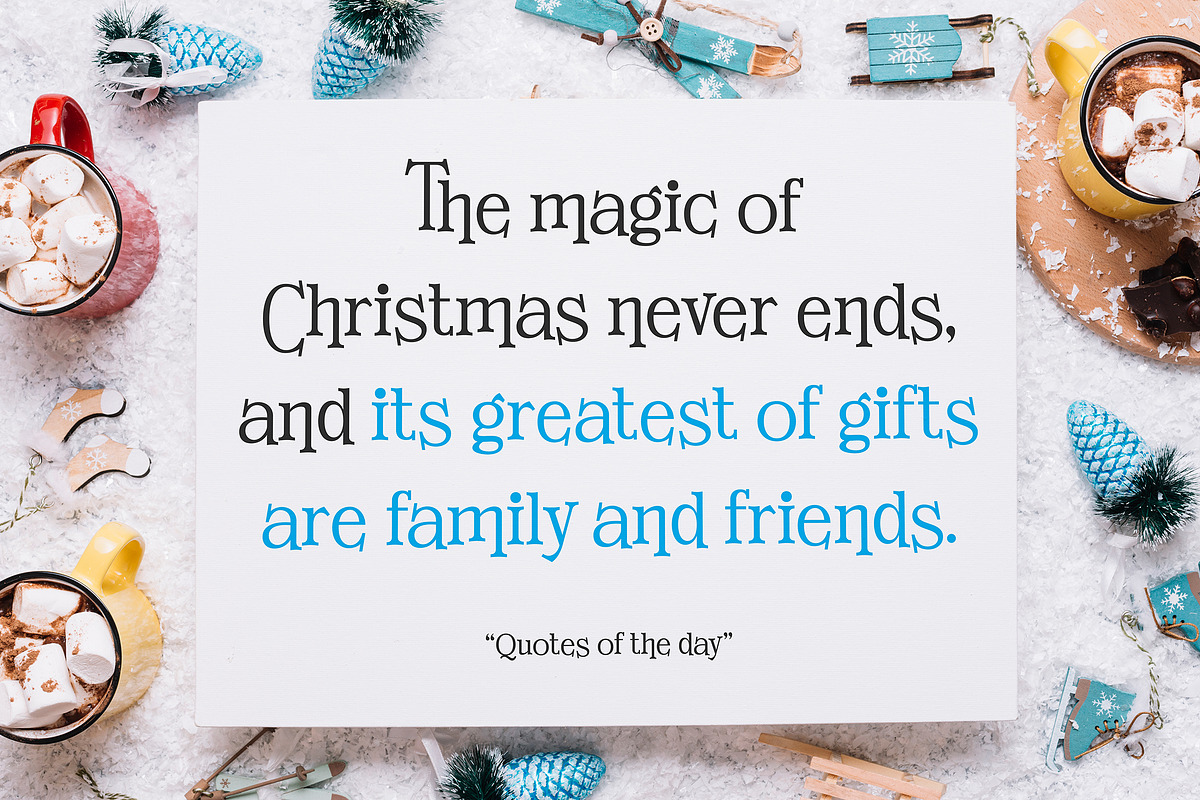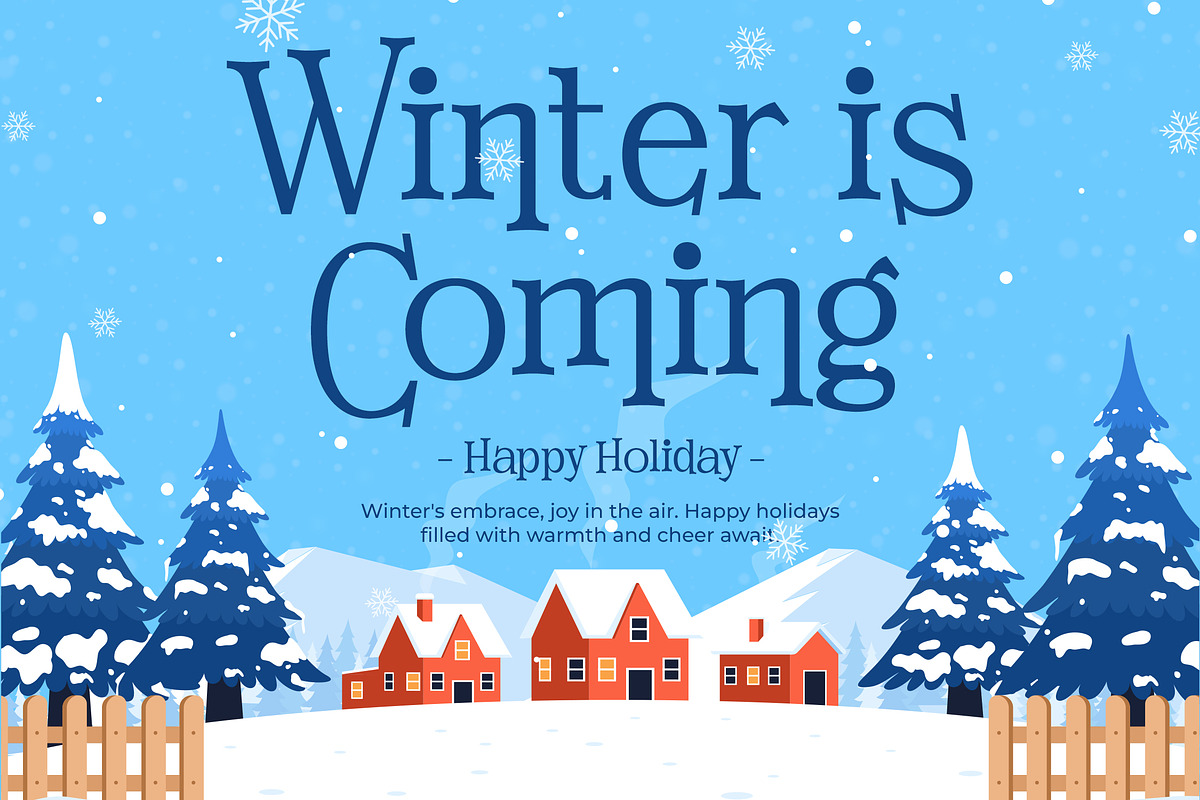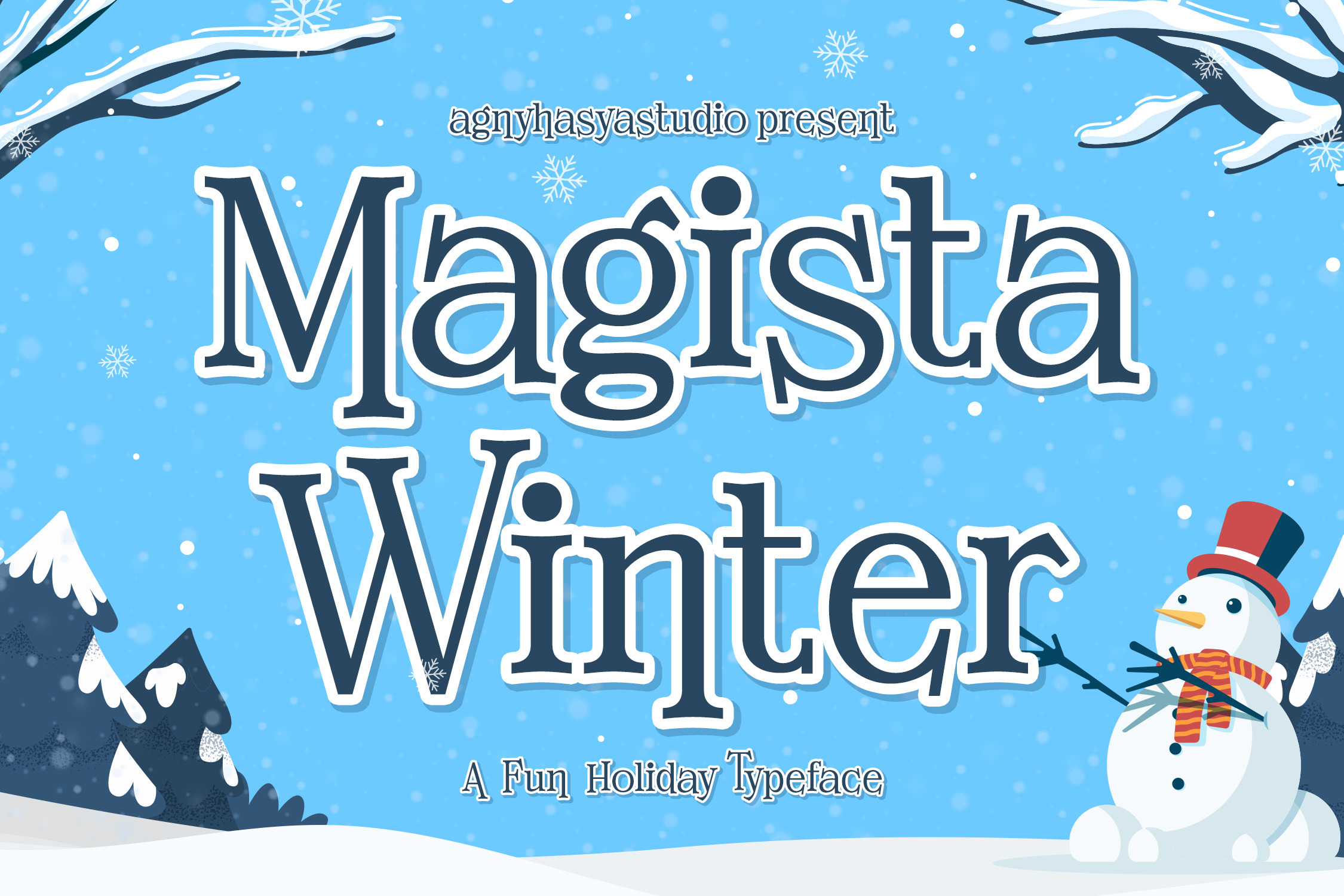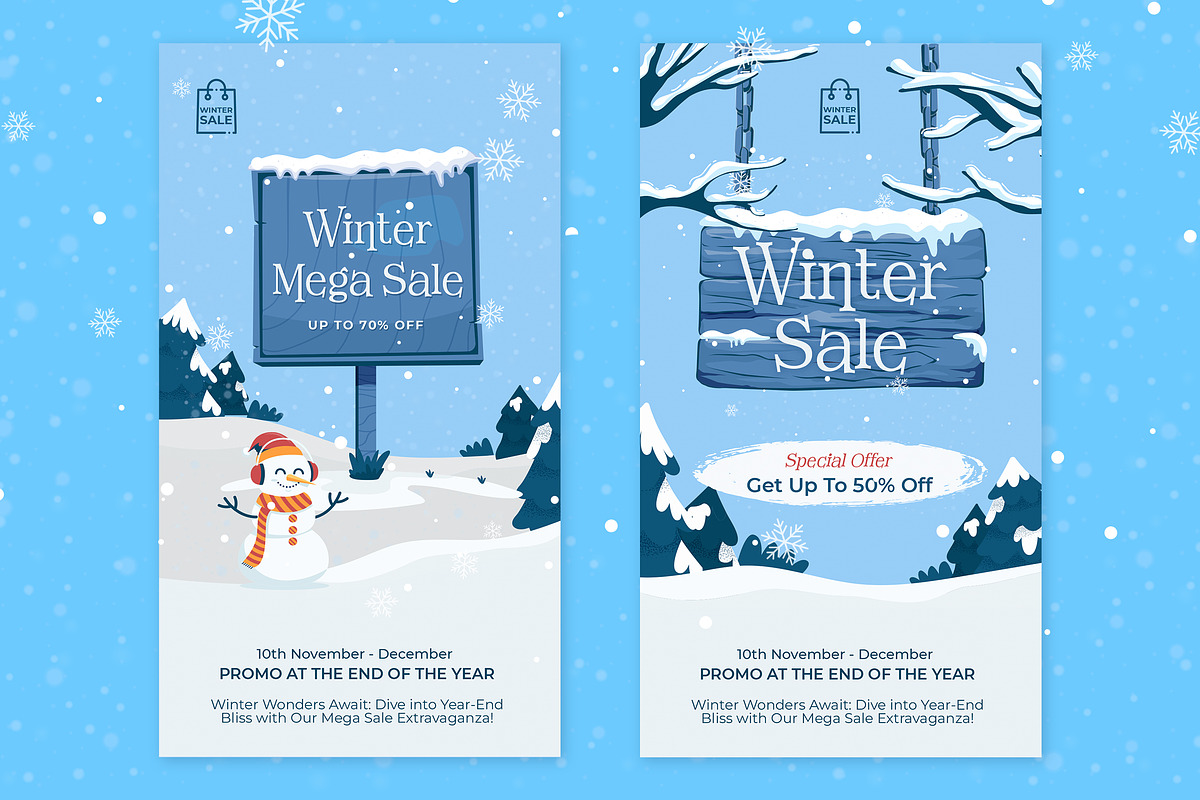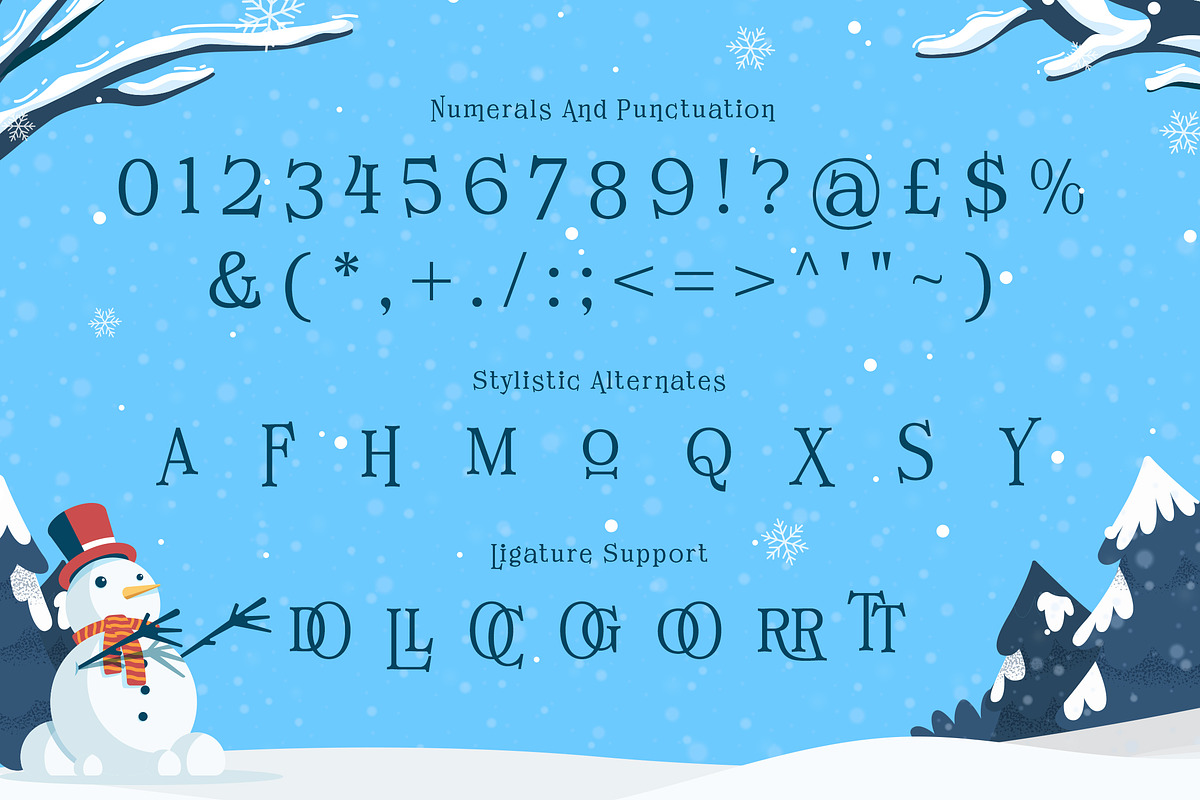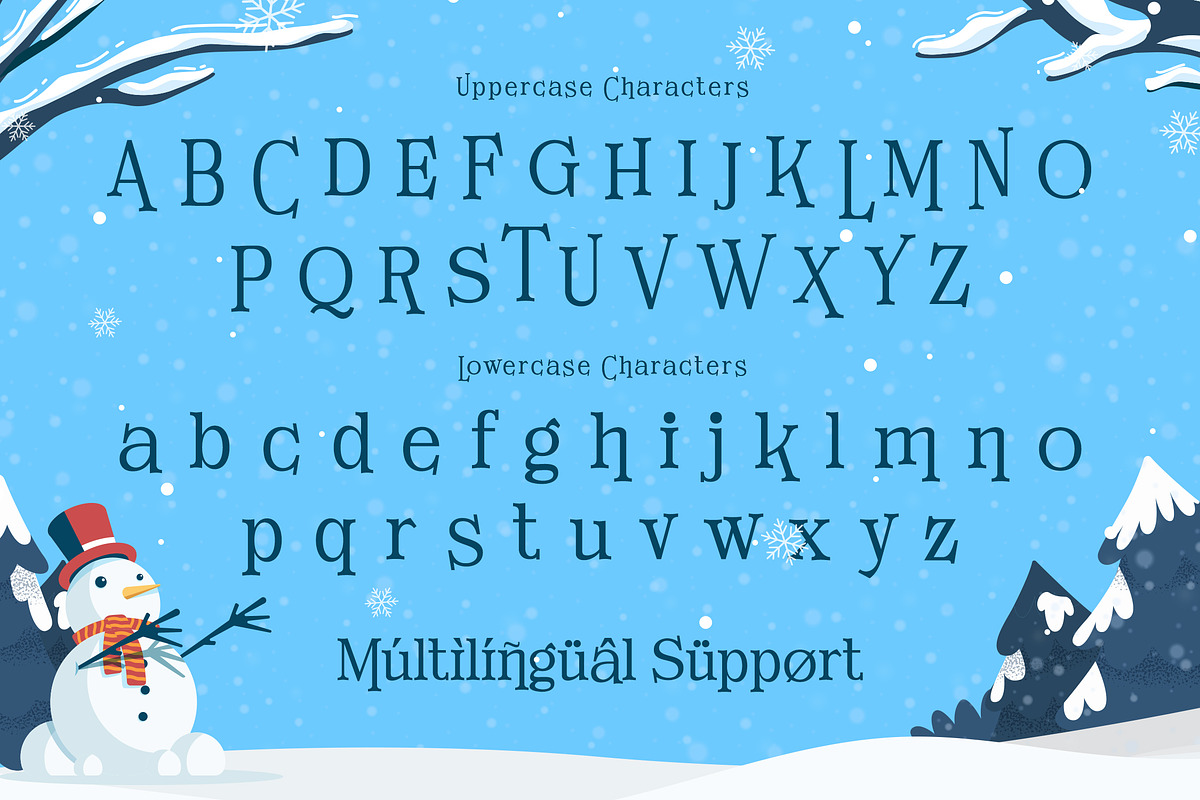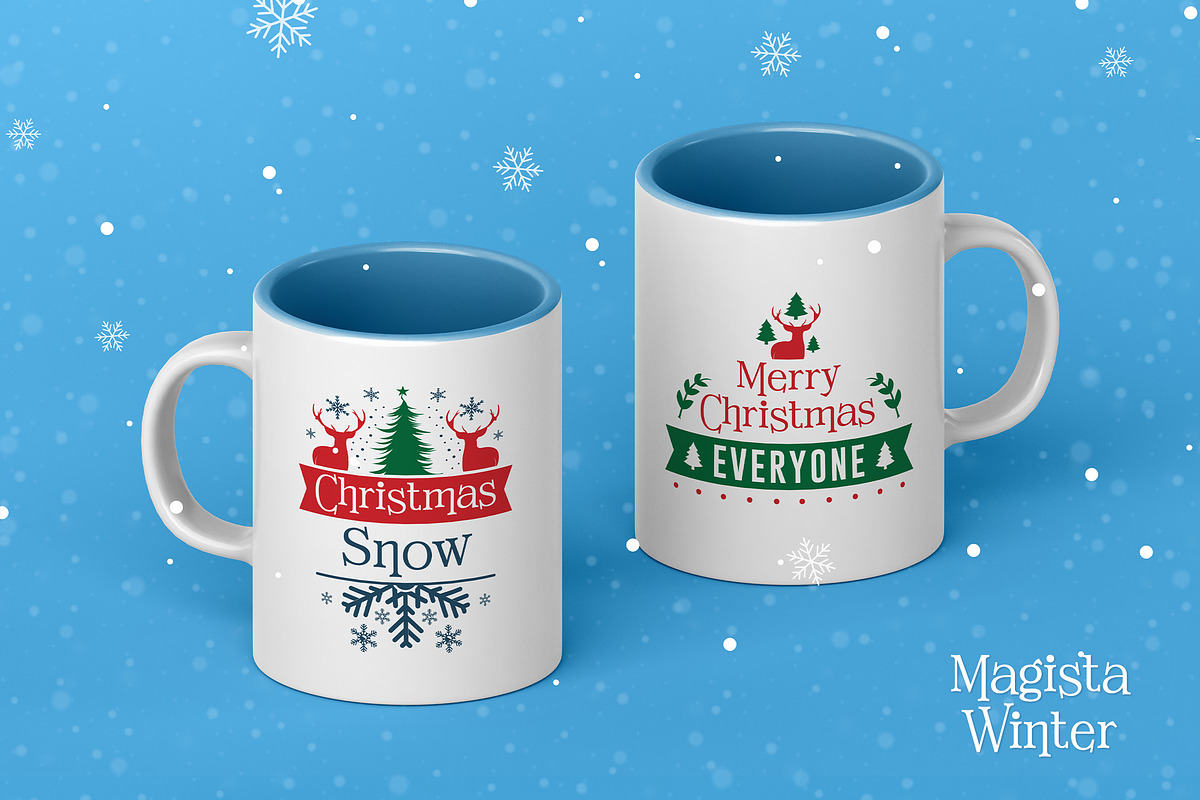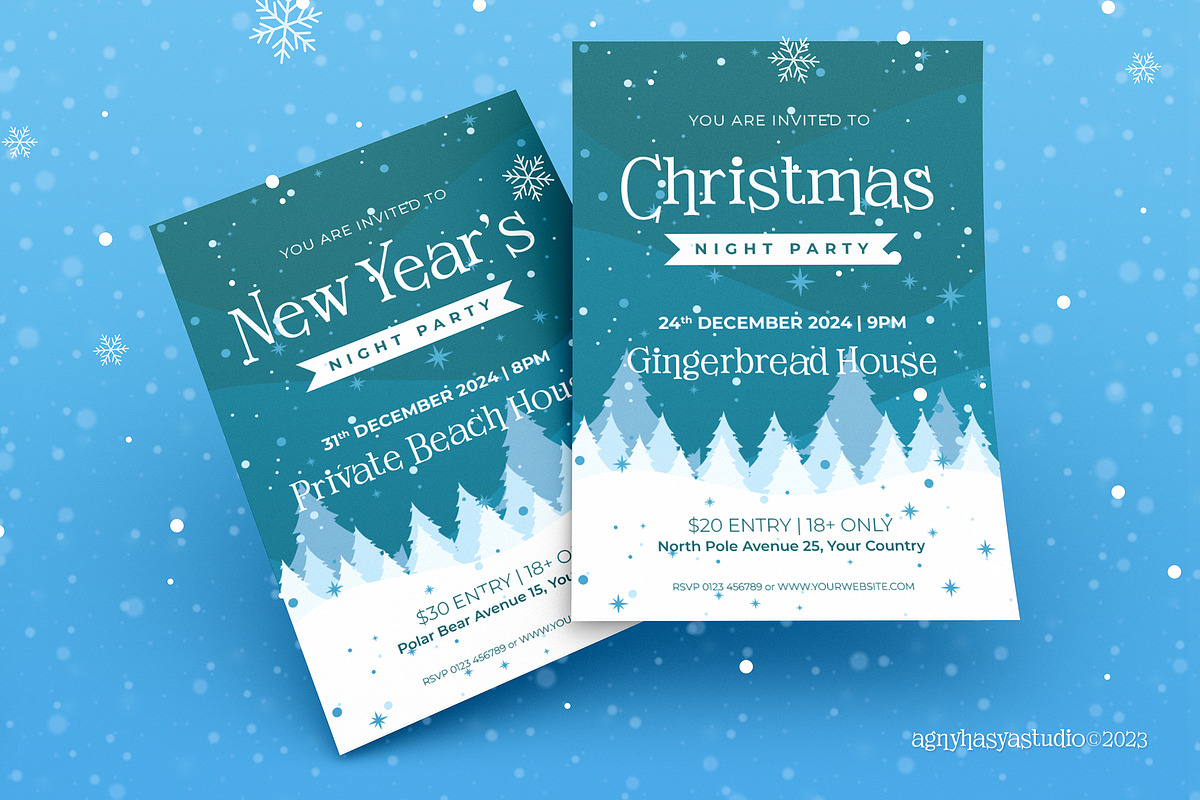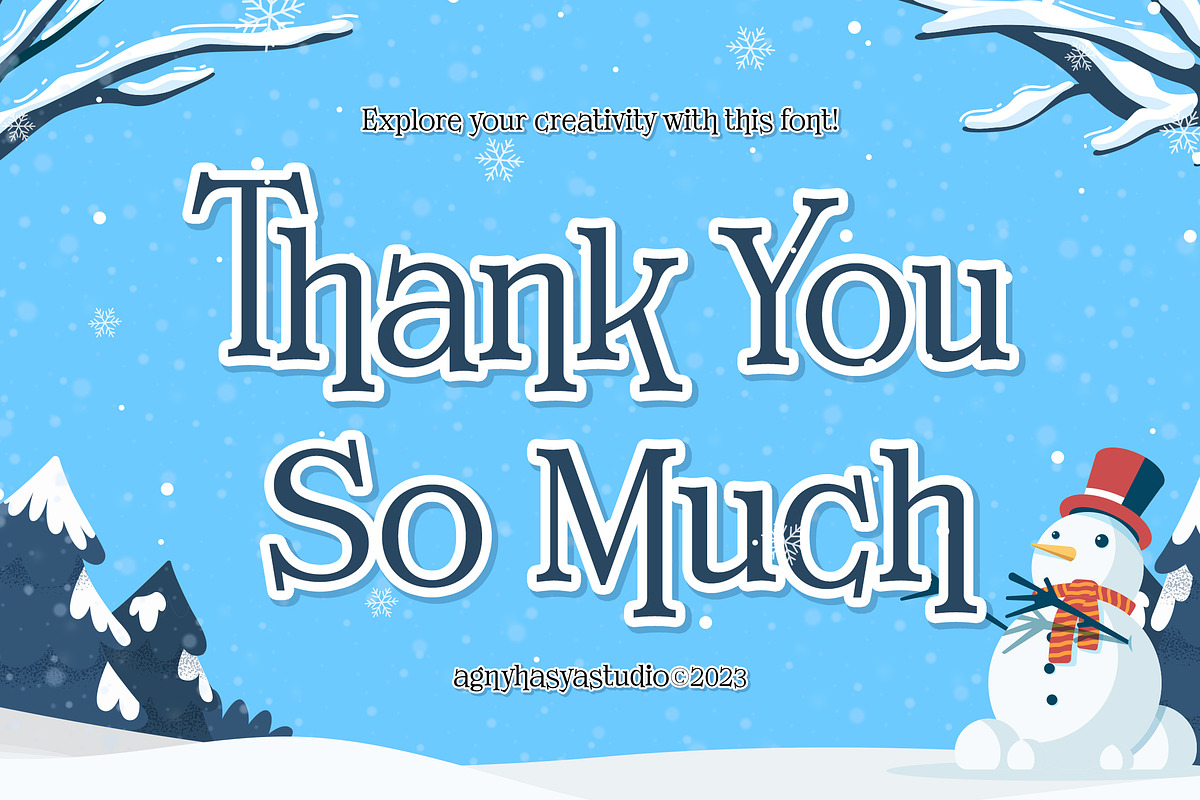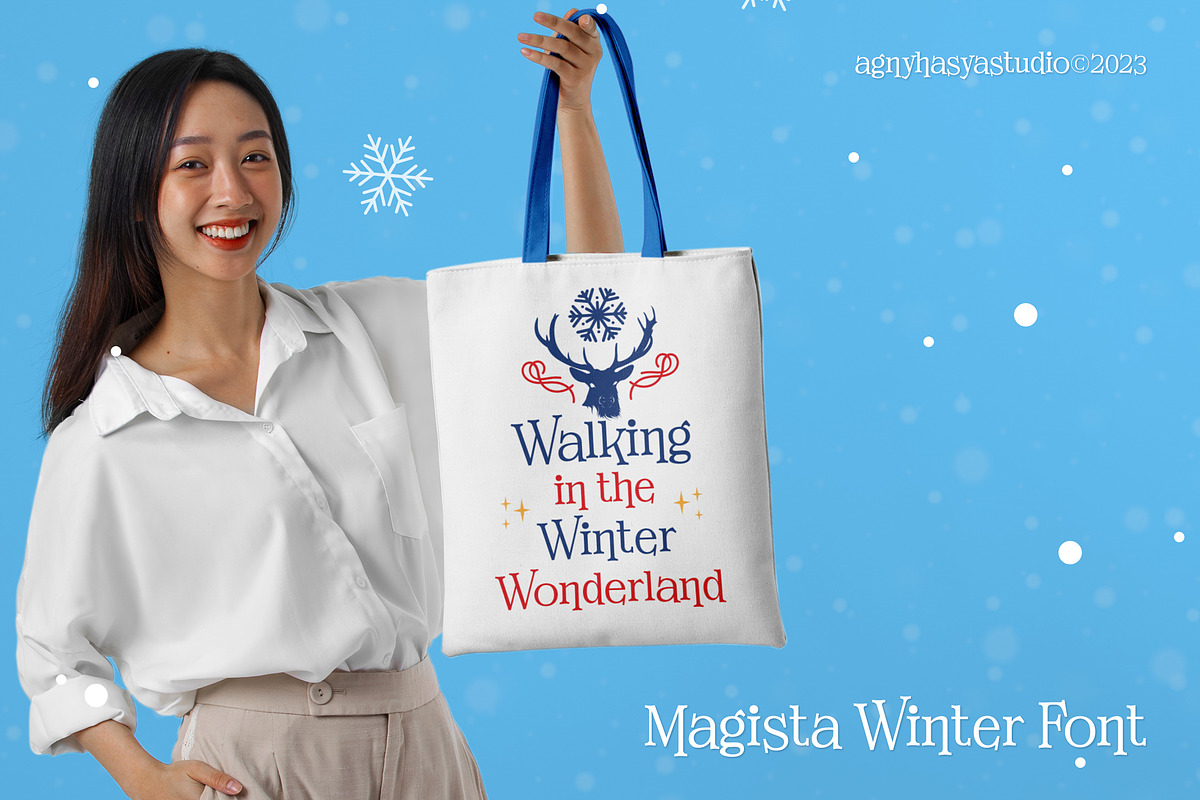
Magista Winter - A Fun Holiday Font
Proudly Present Magista Winter - A Fun Holiday Typeface
Magista Winter Is a Fun Holiday Typeface With a Concept of the End of the Year Events Such as Christmas, New Year, and Winter. It Comes in 2 (Two) Styles (Regular & Slant) and Is Created With Some Alternate and Ligature.
Perfect for Your Design Projects Like Advertising, Branding, Posters, Sale Signs, Product Designs, Special Events, Book Covers, Cards, Merchandise, Labels, Product Packaging, and More.